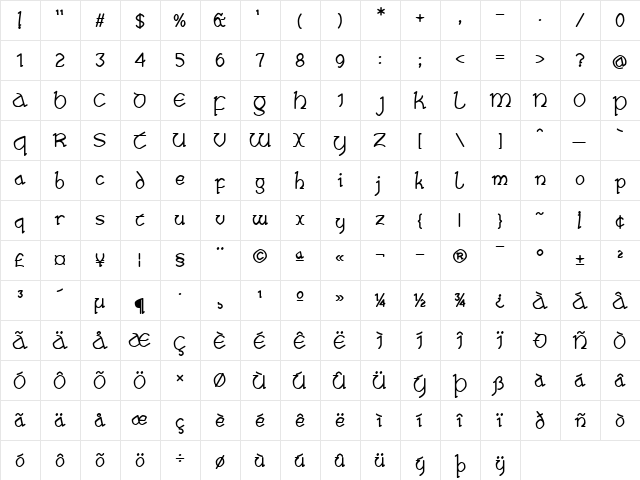
Taisean Regular
Design Context for Taisean Typeface
Taisean is a composed and adaptable typeface that performs quietly and consistently across a wide range of design contexts.
Pro Tip: Pair Taisean with a font of contrasting weight or personality to build a more expressive typographic hierarchy.